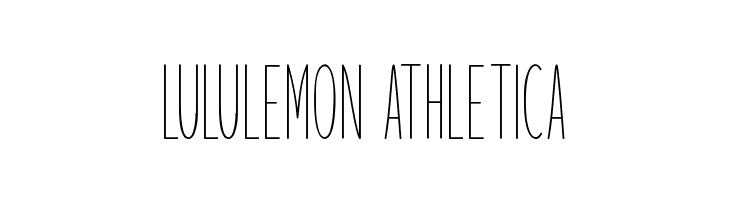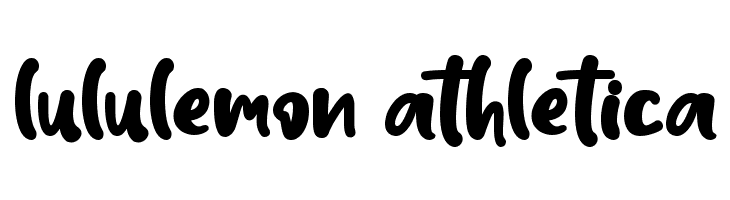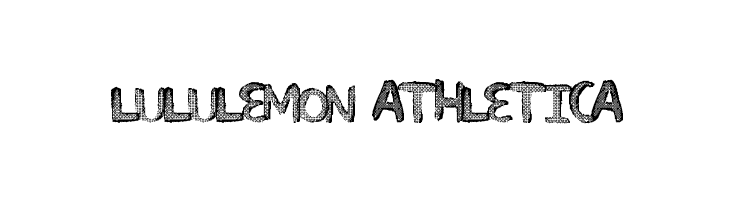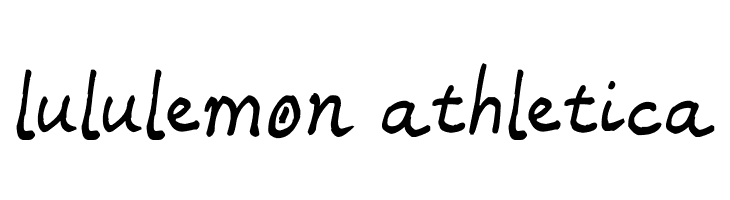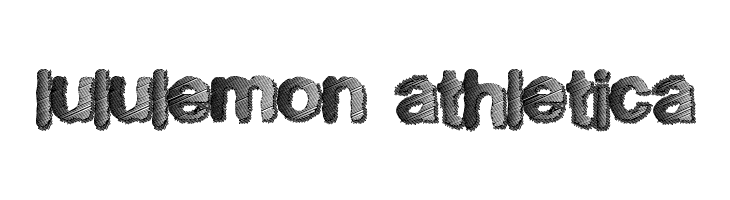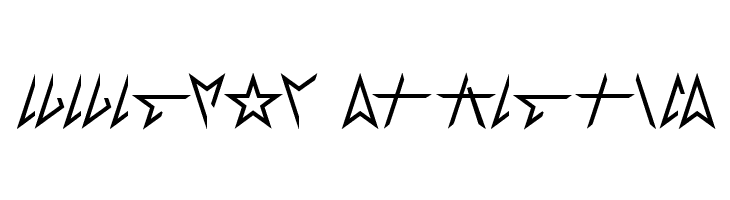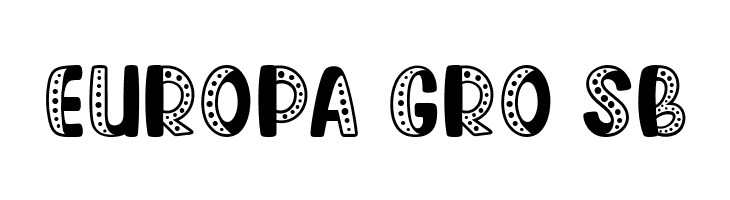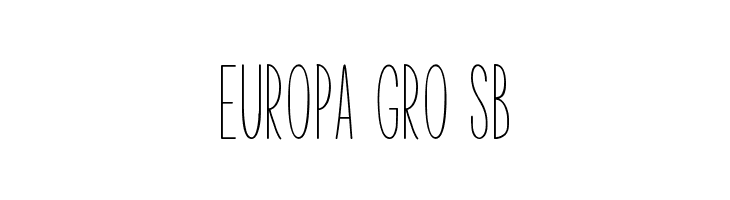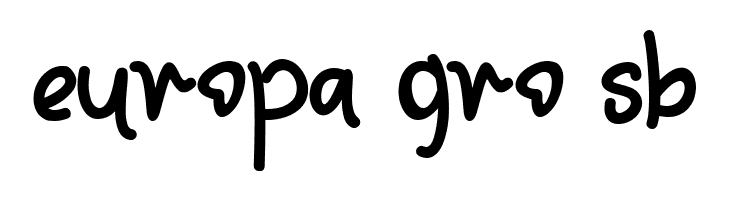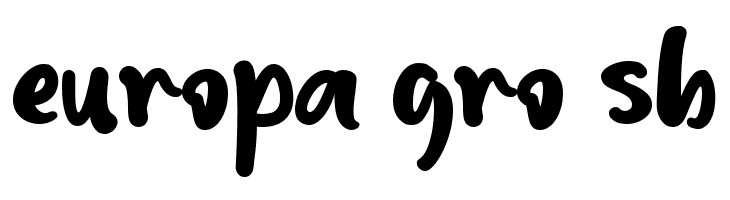
A bold, distressed font with a unique fading effect and hand-drawn style.
A bold, textured font with a hand-drawn, sketch-like appearance.
A bold, angular font with a futuristic and edgy design.
A tall, slender, and modern font with a sleek and elegant appearance.
A playful, hand-drawn font with a whimsical and artistic style.
A playful, bold, and rounded font with a hand-drawn feel.
A playful, bold font with dotted accents inside each character.
A playful and elegant script font with flowing, interconnected letters.